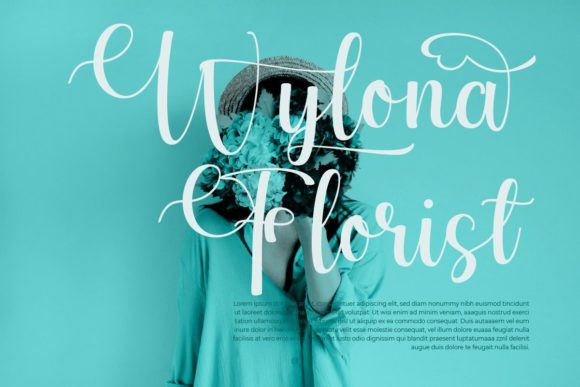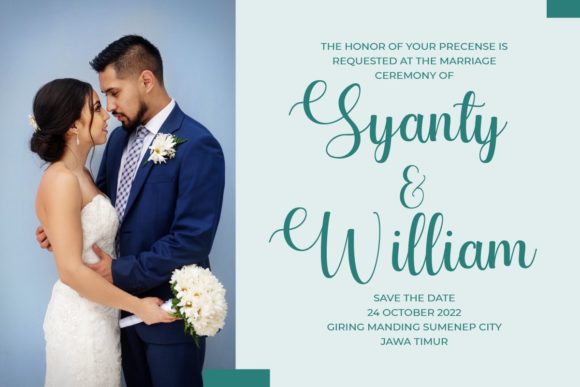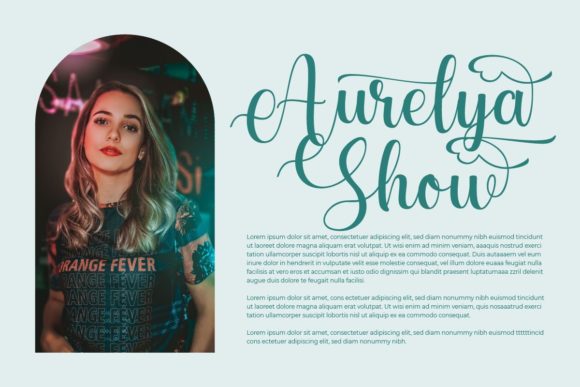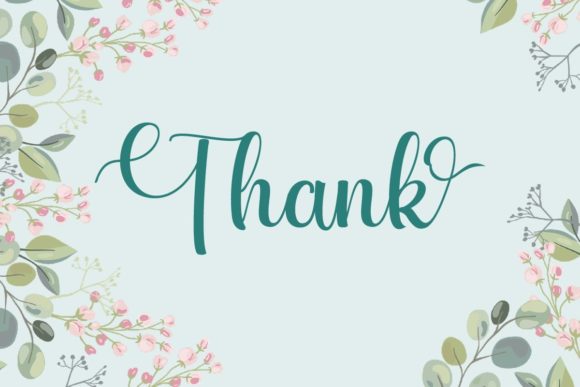
A New Canvas for Your Creativity
Have you ever stared at a blank page, waiting for inspiration to strike? The blank slate of a new project can be daunting, but what if you had the perfect tool to spark your creativity? For designers, the right font can be the key to unlocking a masterpiece.
Enter the Aurelya Font, a delicate and elegant handwritten font that’s sure to capture your heart. Its distinct and well-balanced letters make it a true masterpiece, perfect for creating spectacular designs that leave a lasting impression. Whether you’re working on a branding project, a wedding invitation, or a blog post, Aurelya Font is the perfect choice to add a touch of sophistication and elegance.
With its PUA encoding, you’ll have access to all glyphs and swashes, giving you the freedom to experiment and push the boundaries of your creativity. Say hello to the Aurelya Font, your new go-to companion for crafting stunning designs that reflect your unique style.
Aurelya Font Key Features
• Unique Characteristics: Aurelya Font features a unique blend of modern and elegant design elements, including intricate details and subtle texture.
• Kerning and Ligatures: Aurelya Font includes advanced kerning and ligature pairs, ensuring smooth and professional typography.
A Designer’s Review of Aurelya Font
Aurelya Font caught my attention with its elegant and modern design, perfect for creating a sophisticated look for any project. ✨ Here are a few things that I think work well:
• High-quality vector files, ideal for high-resolution printing and scalable designs.
• Professional and clean typography, great for titles, headings, and body text.
• Well-balanced proportions and line spacing, making it easy to read and understand.
• A wide range of languages supported, making it a great choice for international projects.
• ⚠️ Limited character set, which might be a concern for projects requiring a wide range of special characters.
Overall, Aurelya Font is a high-quality font that’s perfect for creating a professional and modern look. While it has some limitations, its benefits far outweigh its drawbacks. I would highly recommend it to designers working on high-end projects or those who value a clean and sophisticated typography.
Getting the Most Out of Aurelya Font
For best results, pair Aurelya with simple, clean designs. Avoid using it with too much clutter or complex graphics. Experiment with different font sizes and styles to create visual interest. You can also use Aurelya in combination with other fonts to create a unique and eye-catching design.
Aurelya Font is suitable for a variety of designs, including: branding and logos, website headers, social media graphics, and advertising materials. Its elegant and sophisticated look makes it perfect for luxury or high-end products.